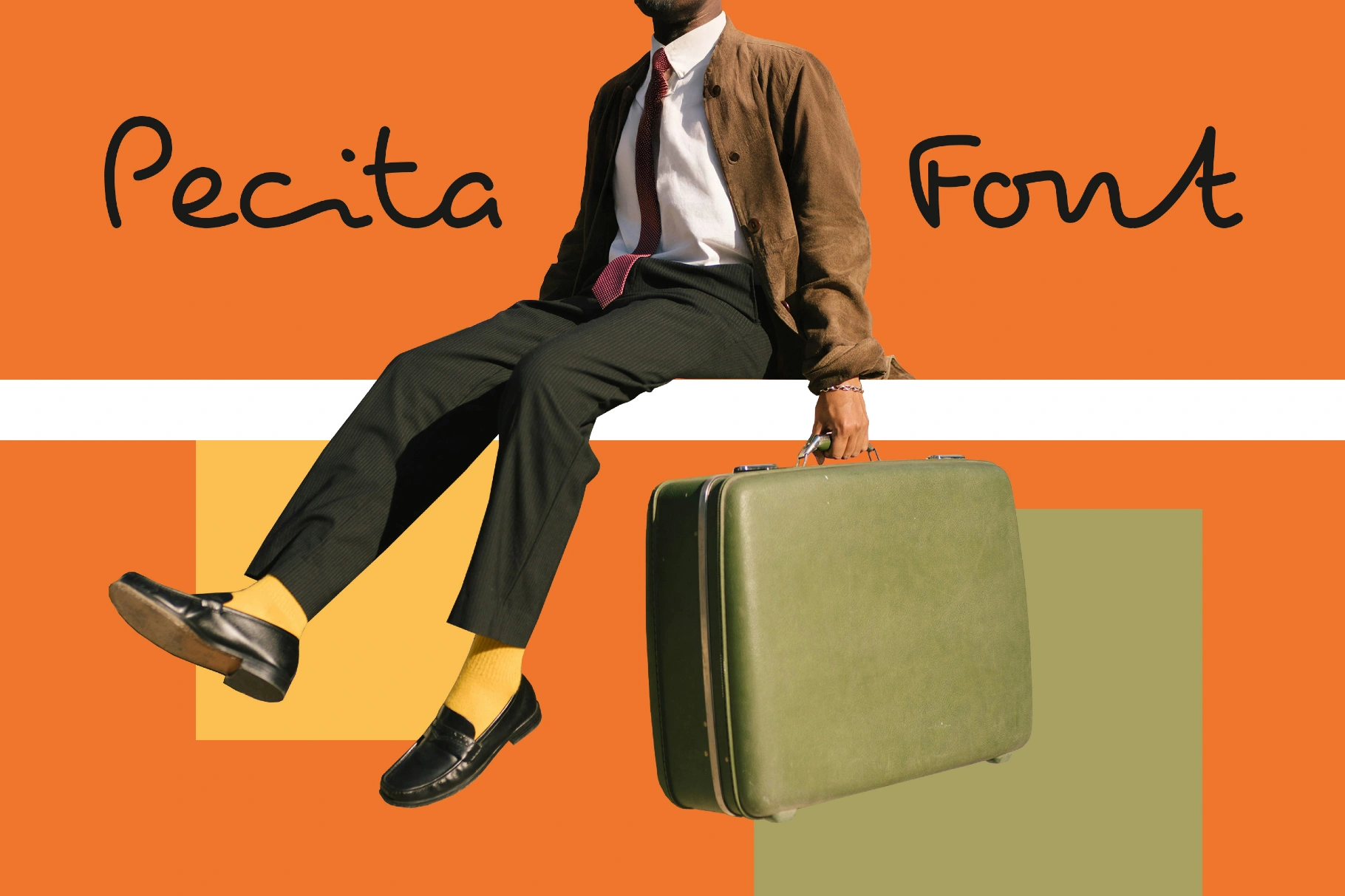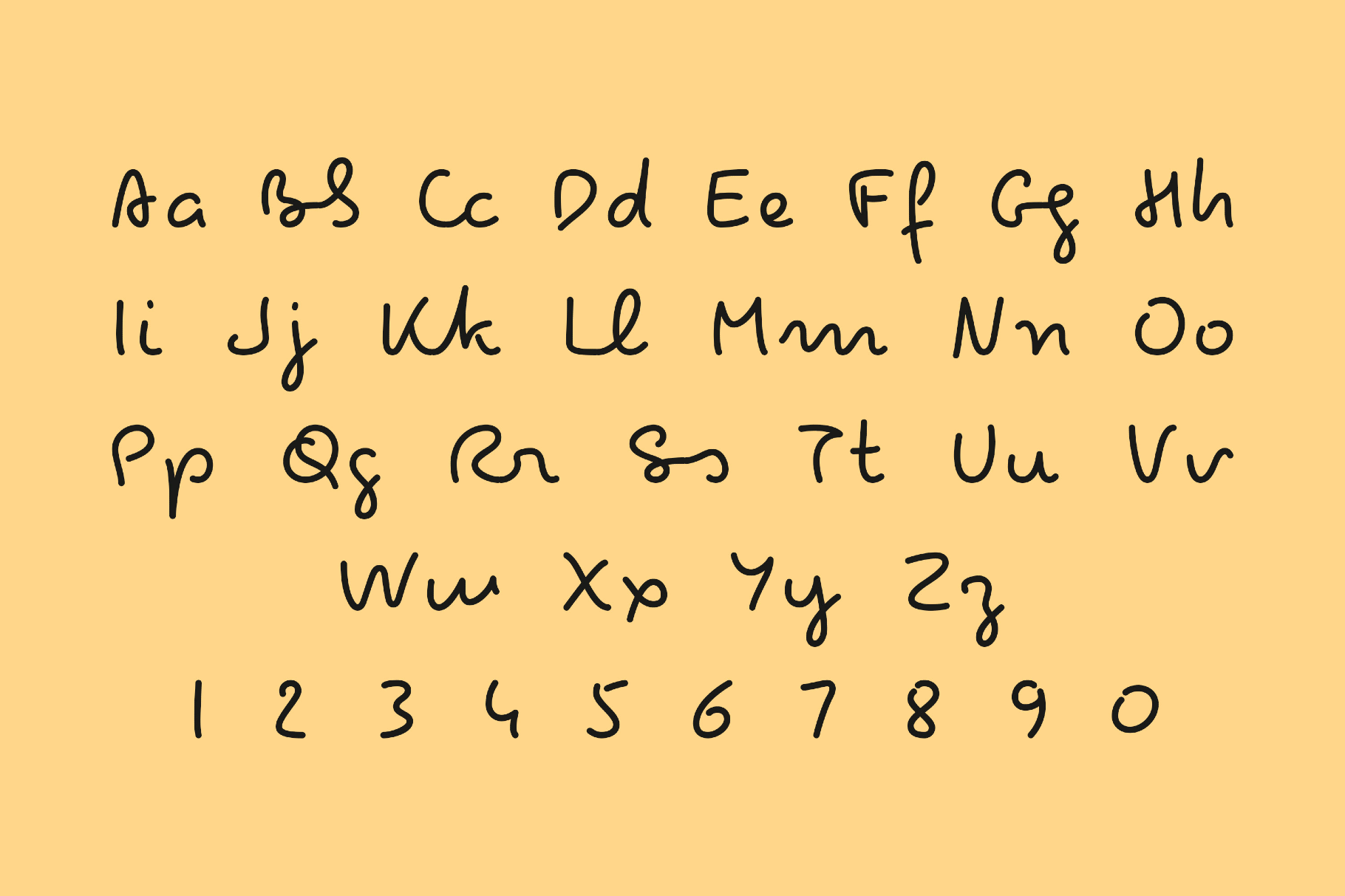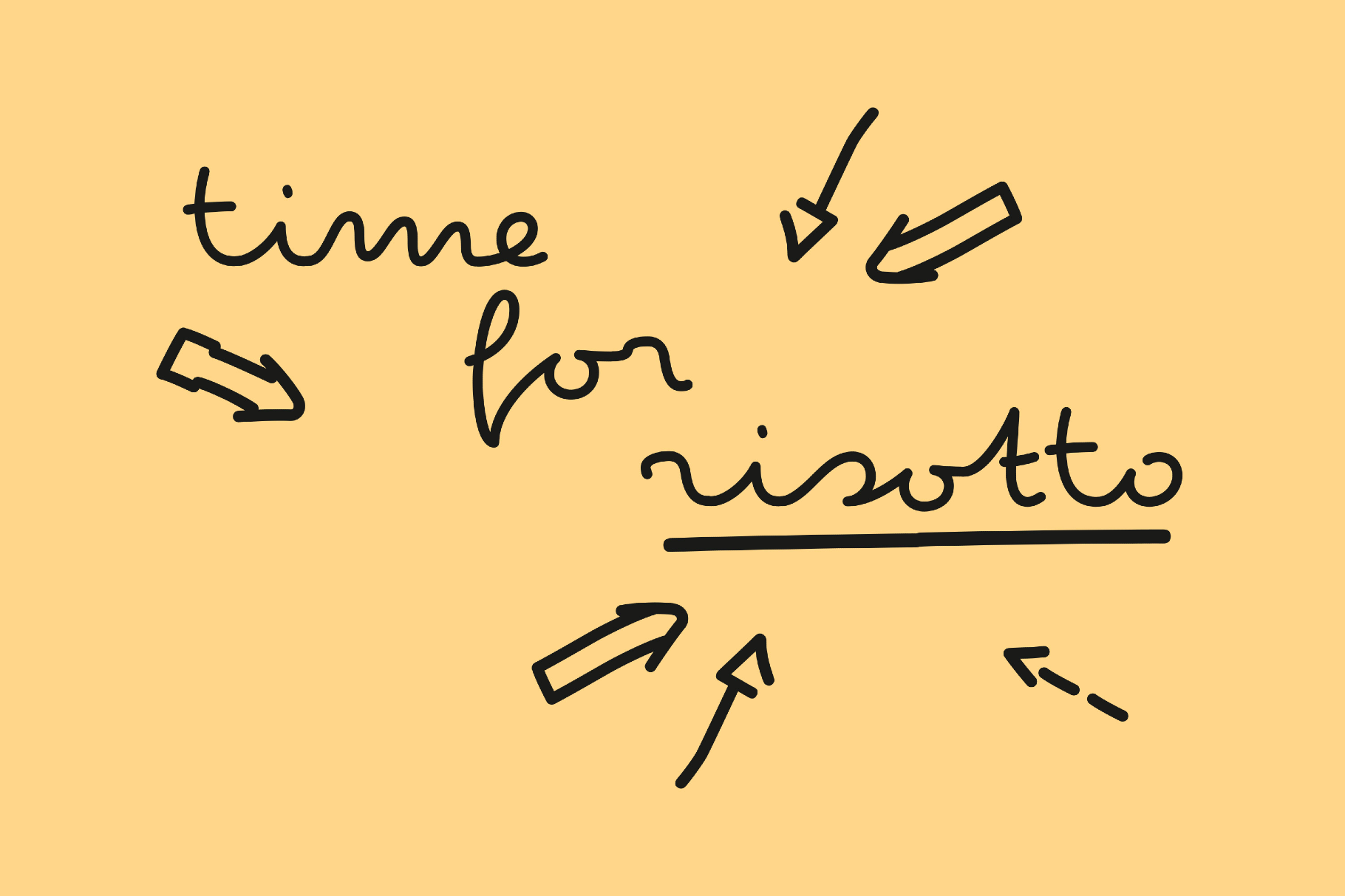
Pecita Font
Pecita wanders in loose, looping strokes like a felt-tip pen across diary pages. This lively, calligraphic font with crisp contrast and expressive alternates is a strong choice for editorial headlines, greeting cards, scrapbook-style layouts, invitations, cultural event branding, book covers, album art, packaging design, multilingual identity systems, and social graphics.
• Uppercase, lower uppercase, lowercase letters.
• Numbers, punctuation, dingbats, and symbols.
• Multilingual support across an extended Latin, extended Cyrillic, Katakana, and extended Greek scripts.
• Ligatures, swashes, and stylistic alternatives.